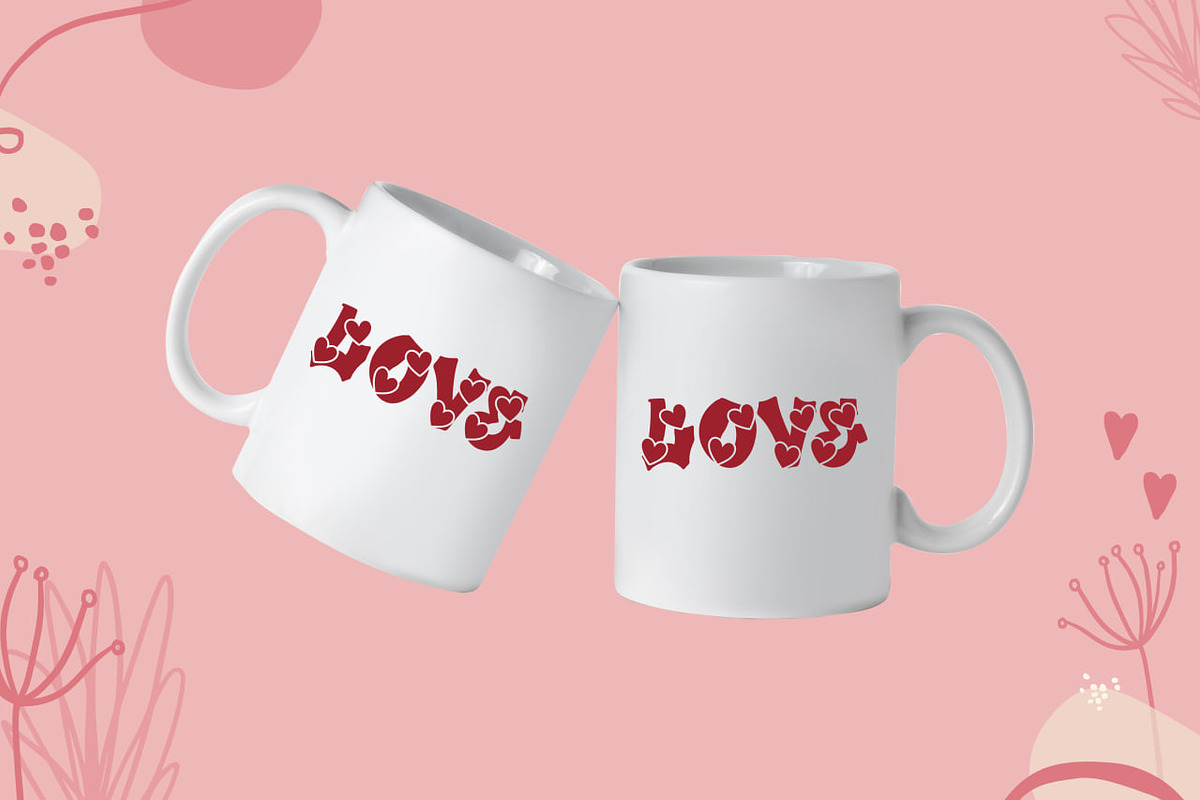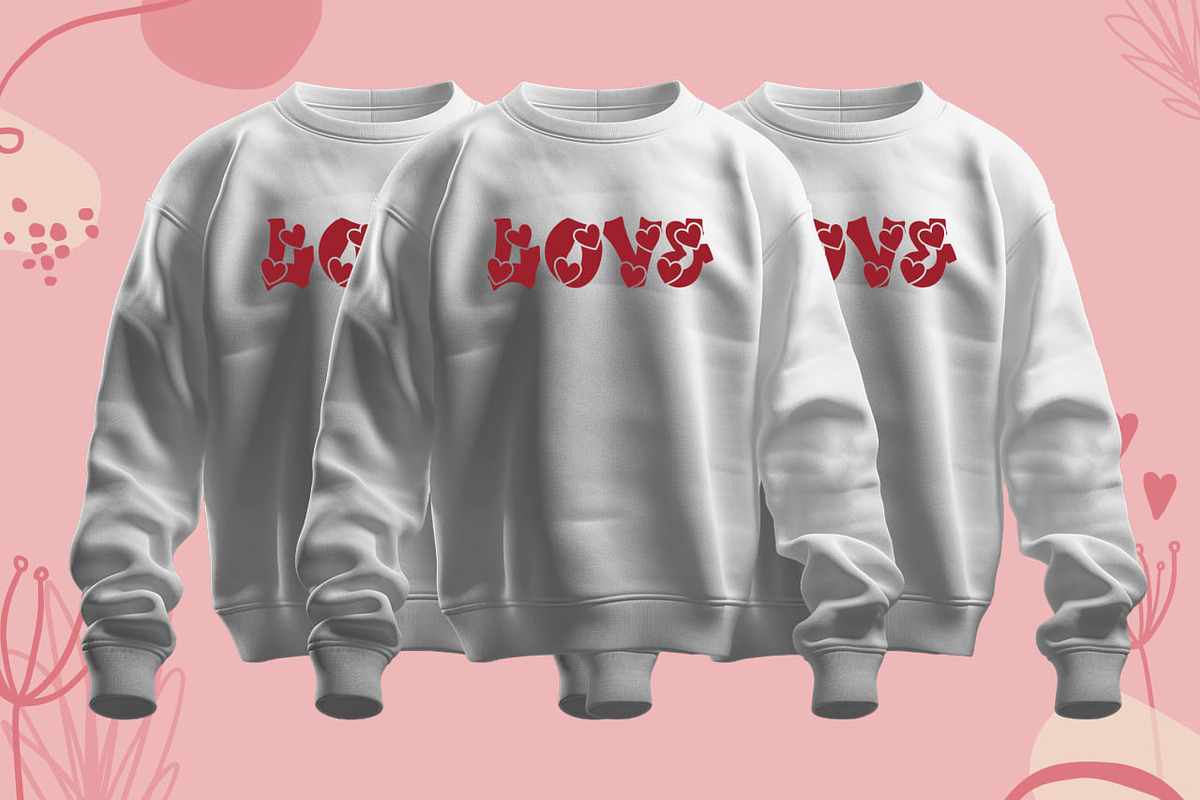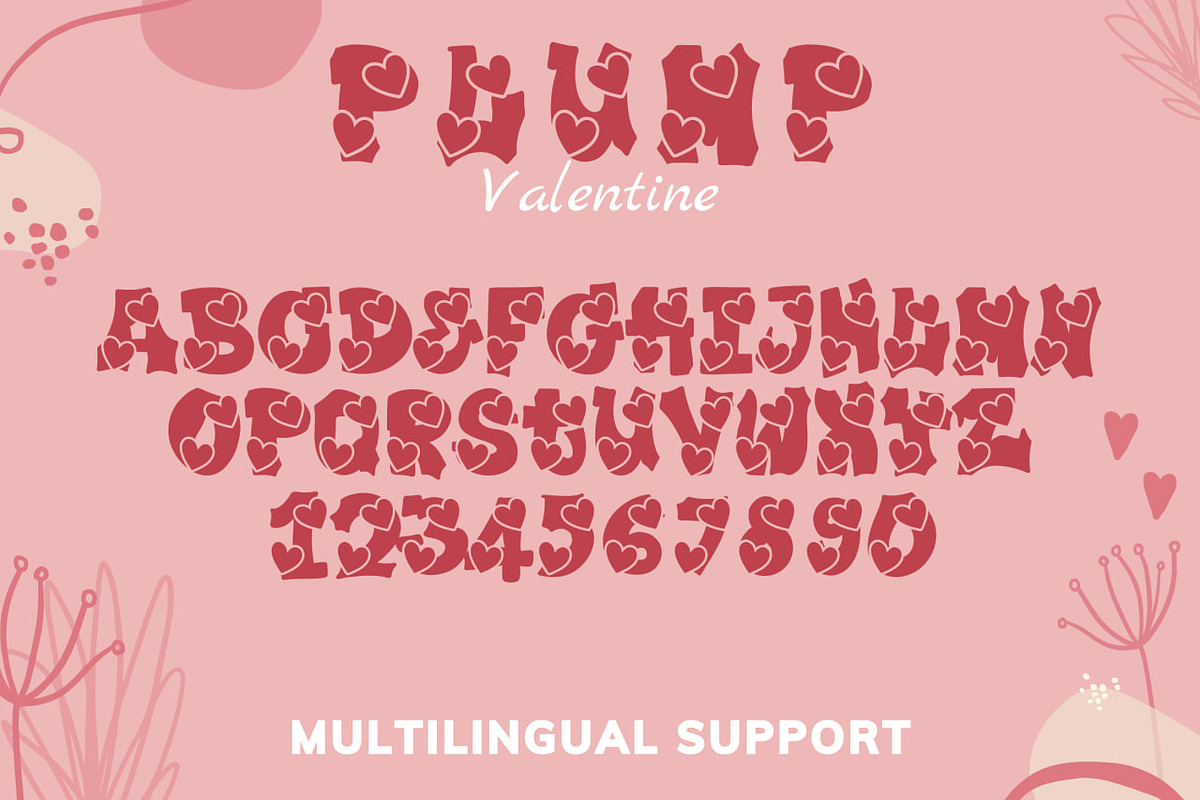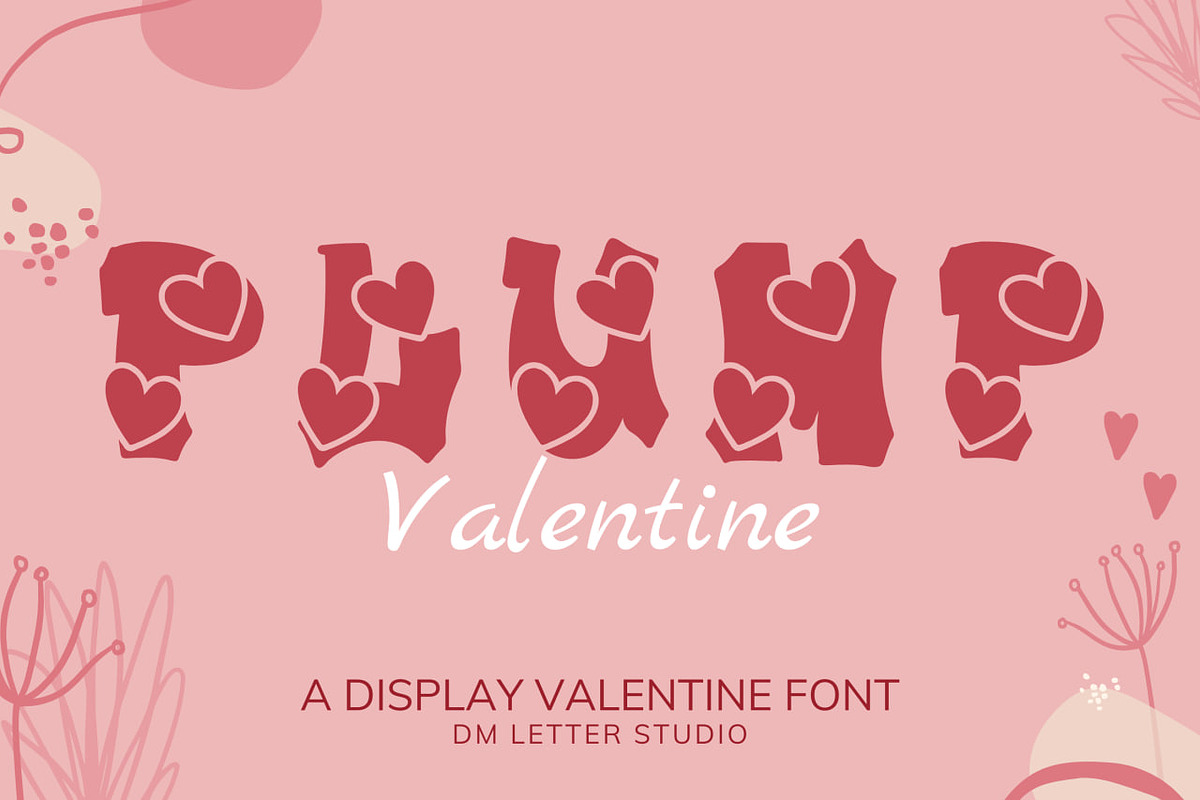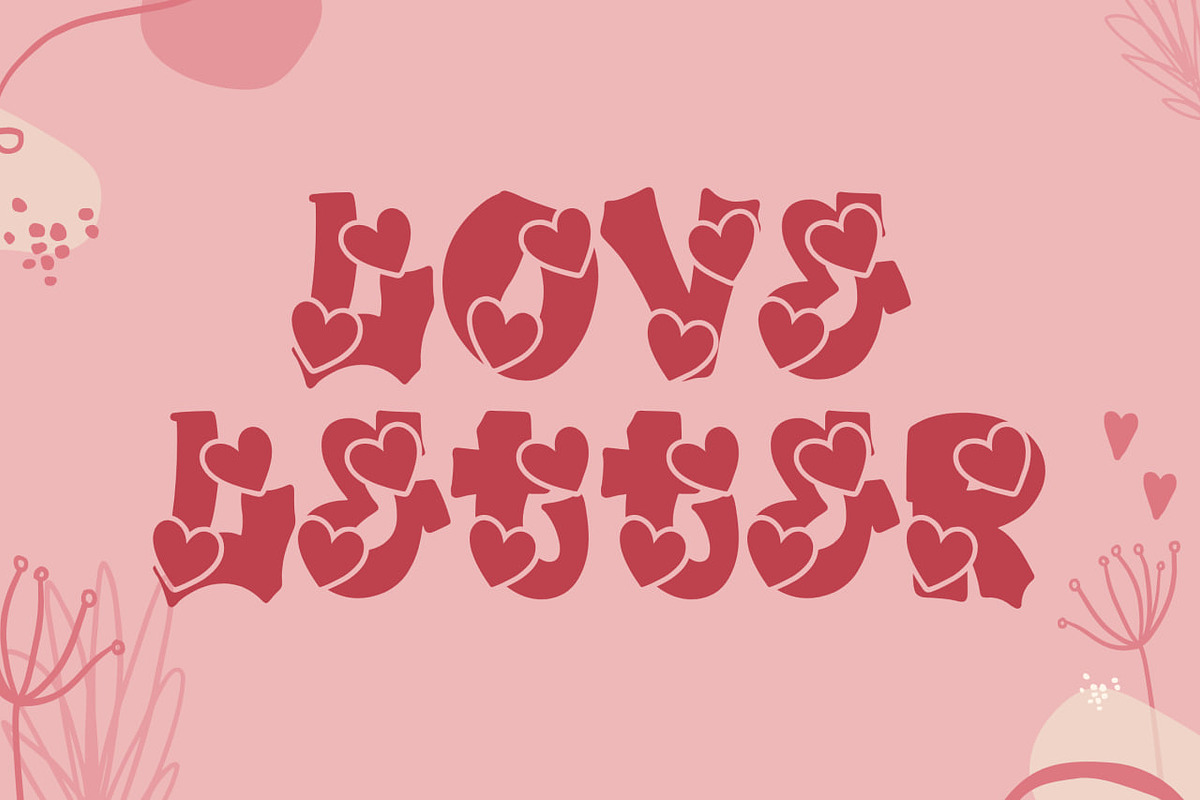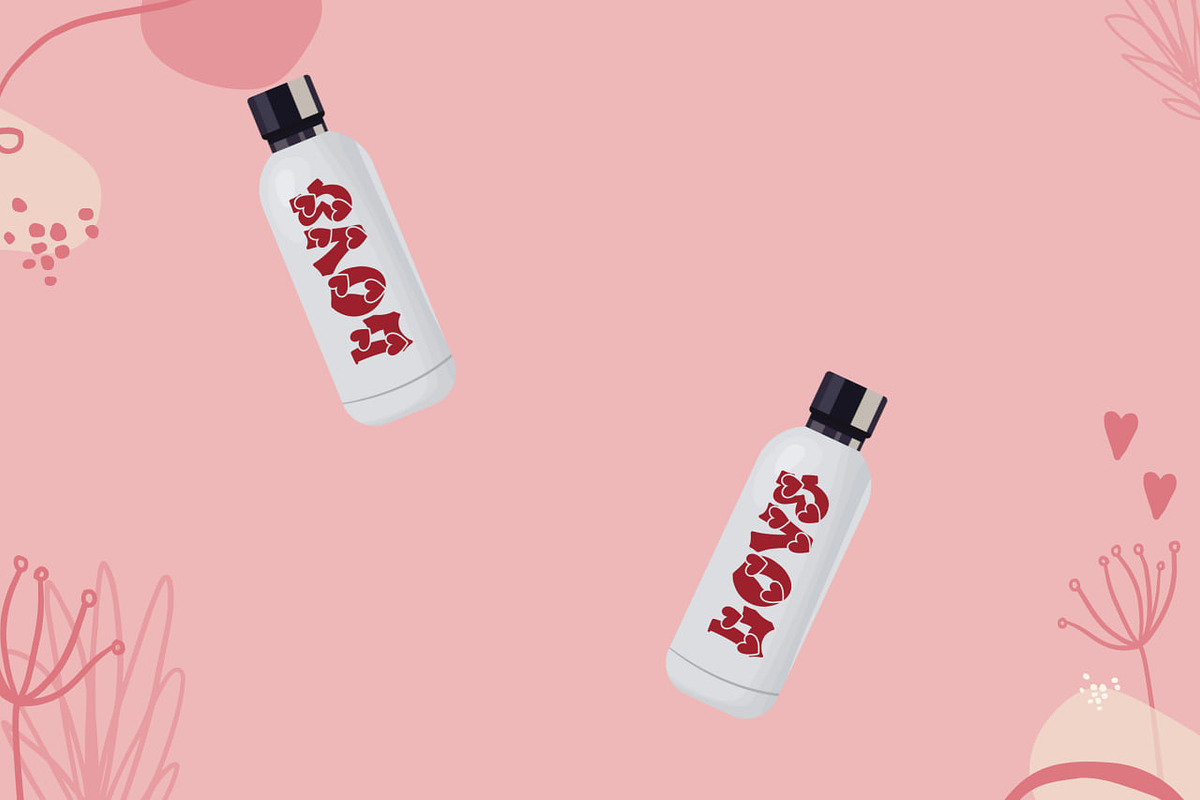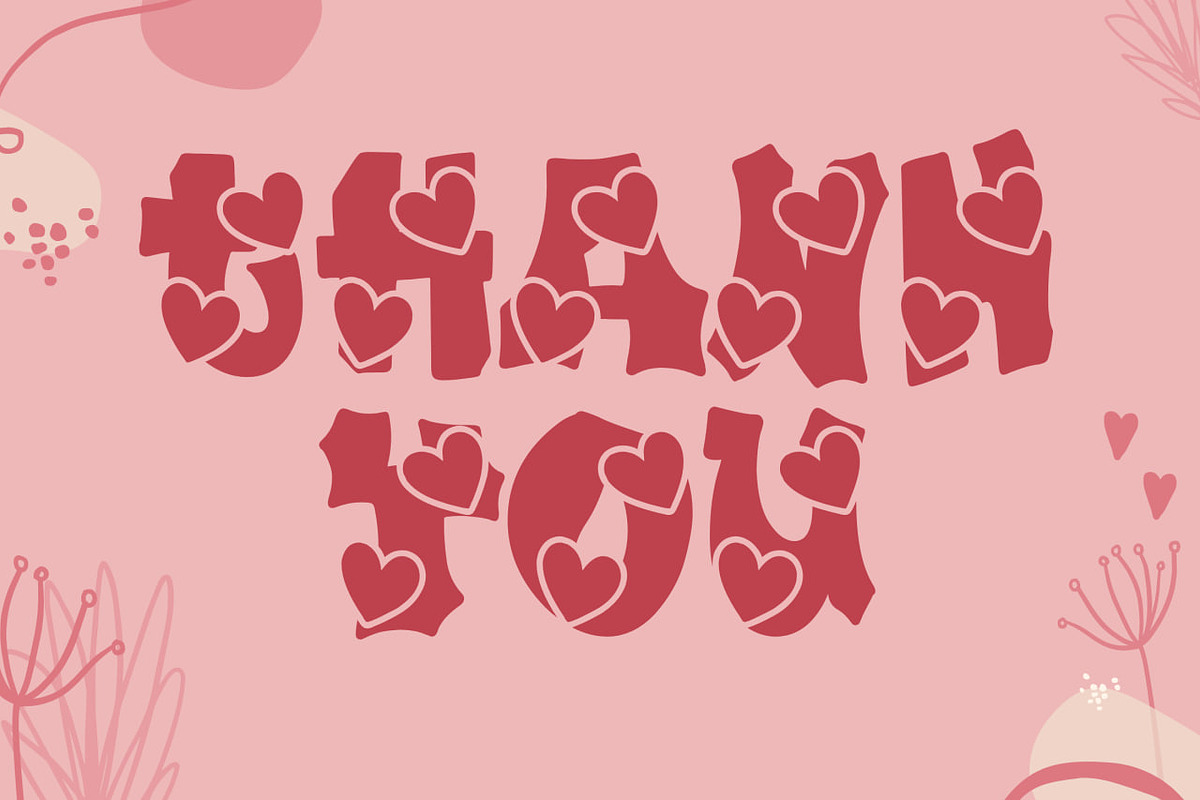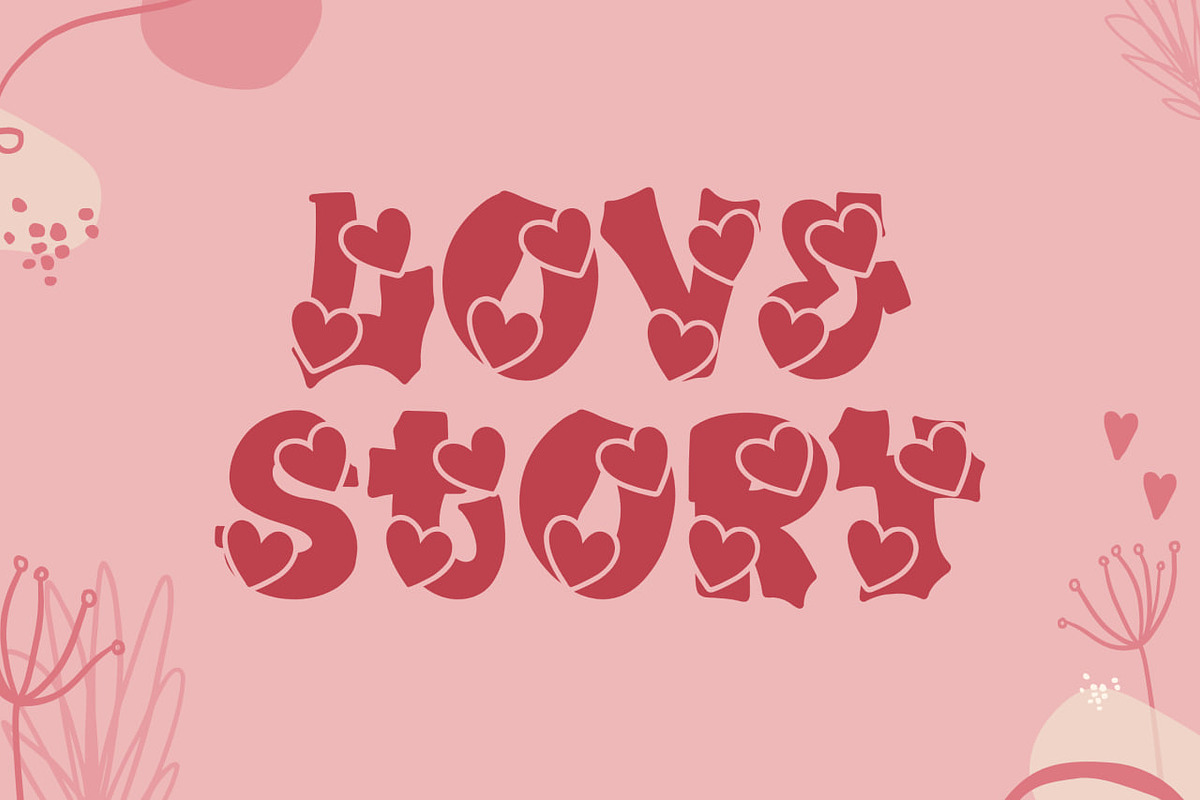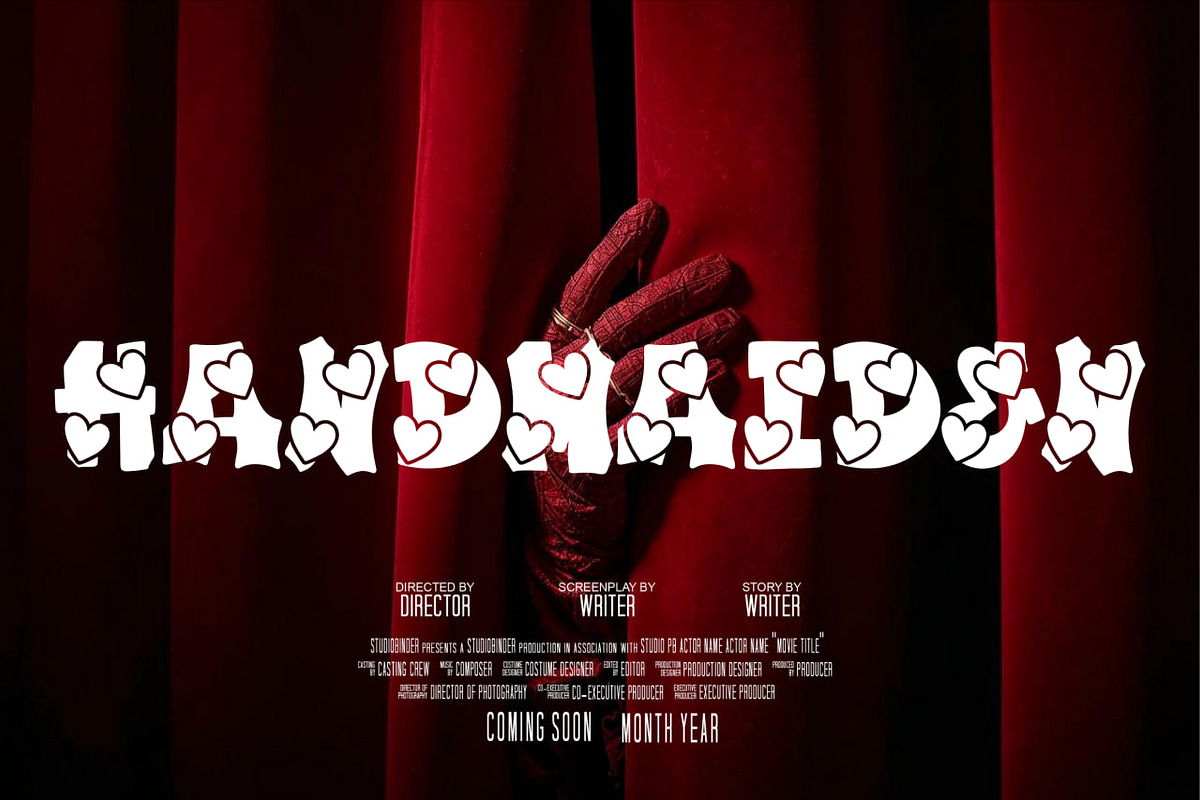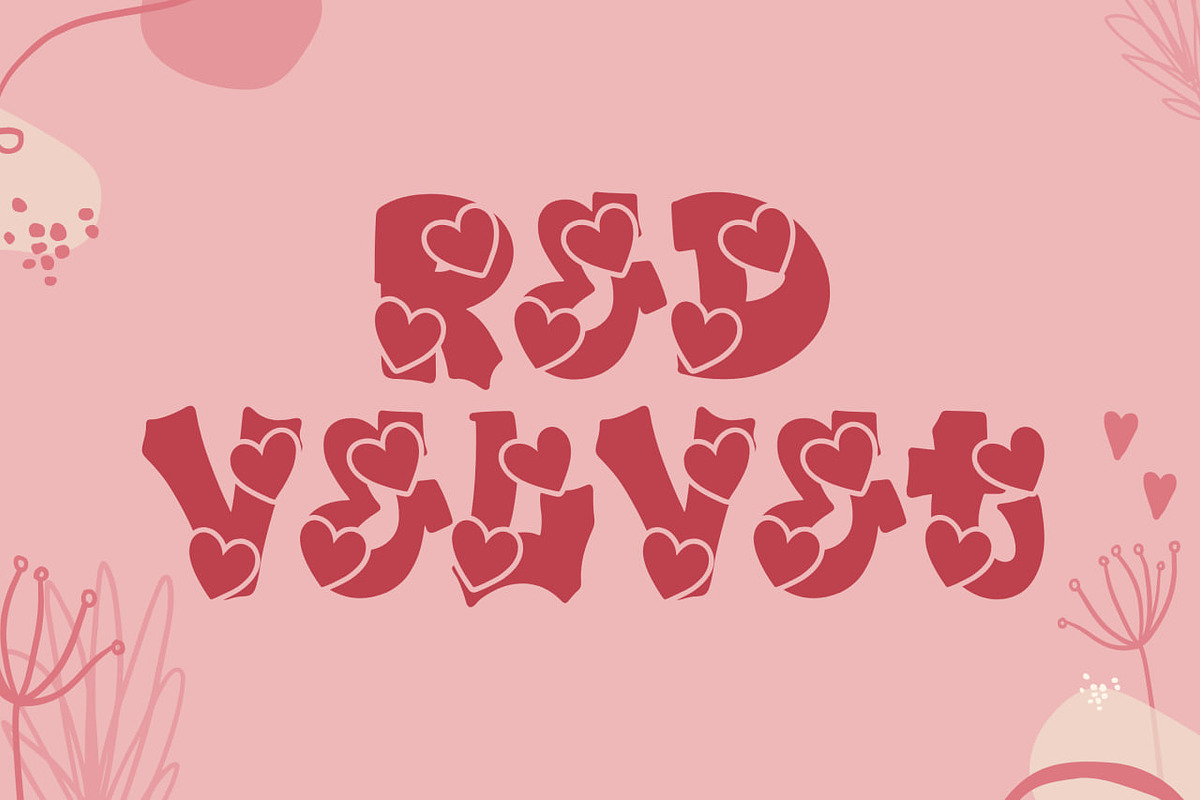
Plump Valentine
Meet Plump Valentine, the Display Font
Plump Valentine is a chunky, rounded display font made for sweet, love-filled designs. It turns simple words into bold headlines with a soft, candy-like feel that instantly fits Valentine season. The shapes are thick yet balanced, so your text stays clear at any size. Because counters stay open, small tags and stickers remain readable while big titles look extra cute. Use it for Valentine cards, gift tags, stickers, packaging, social posts, party invites, and seasonal promos. As a result, your designs feel playful, romantic, and ready to sell.
Fast layouts with the Plump Valentine font
Start with a short headline in Plump Valentine and keep it punchy. After that, add details in a clean supporting font for names, dates, or prices. Because the letters are thick and rounded, give them breathing room with wider margins and a bit more line spacing. In addition, pair it with simple heart doodles, scalloped frames, or ribbon badges to match the cute vibe. Finally, save palette pairs like cherry & cream, blush & cocoa, hot pink & ivory, or burgundy & rose to repeat across your listings.
Creative uses and quick wins
Valentine cards, love notes, and party invitations
Sticker packs, labels, and packaging seals
Gift tags, treat bags, and classroom Valentine sets
Sale banners, reels covers, and quote posts
Uppercase, lowercase, numbers, punctuation
Bold rounded display letterforms for headlines
Curves tuned for clean print and high-res exports
Design tips for Plump Valentine
Keep phrases short so the chunky style stays strong. Also, use a thin outline or soft shadow to boost contrast on busy backgrounds. For print, export at 300 DPI. For web, export at 2× size so edges stay smooth. Finally, pair it with minimal icons like hearts, Cupid arrows, or sparkles so the typography stays the star.